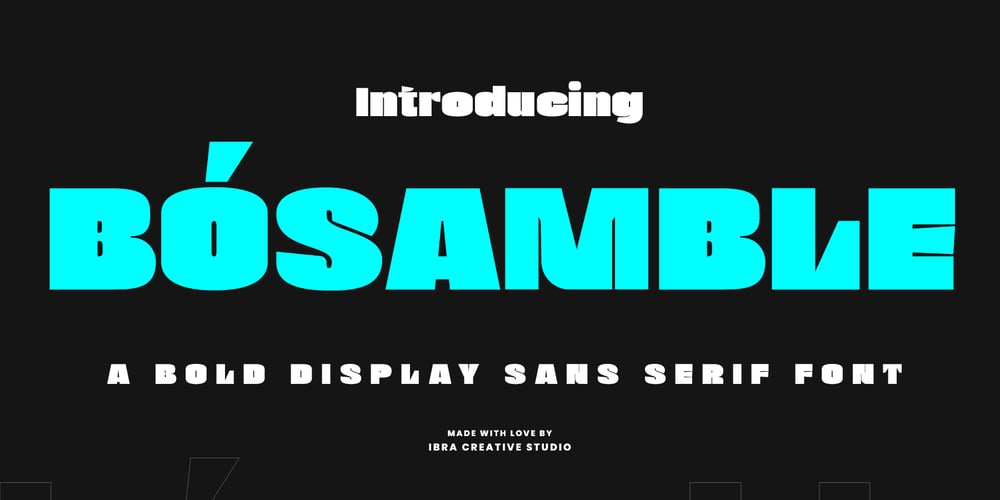
Bosamble
Bosamble font
Bosamble Font Family was designed by Roisatul Azizah and published by IbraCreative. Bosamble contains 1 styles and family package options. Bósamble is a striking and contemporary Bold Display Sans Serif typeface that effortlessly commands attention with its bold, geometric letterforms. Its distinctive design features a perfect balance between thick and thin strokes, creating a sense of power and modernity. Bósamble’s uppercase characters exude a sense of confidence and boldness, making it an excellent choice for headlines, posters, and branding projects where a strong and impactful typographic statement is desired. Its clean lines and clear readability make it a versatile choice for a wide range of design applications, allowing Bósamble to stand out as a compelling choice for those seeking a bold and assertive typeface.